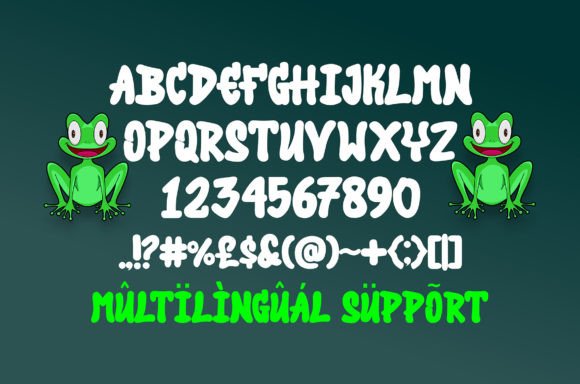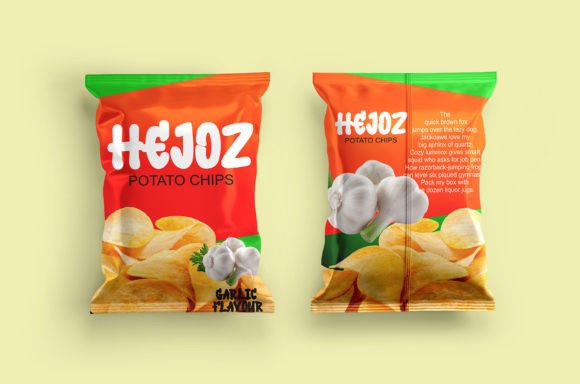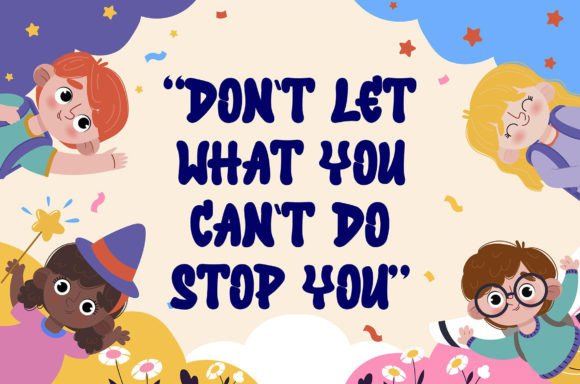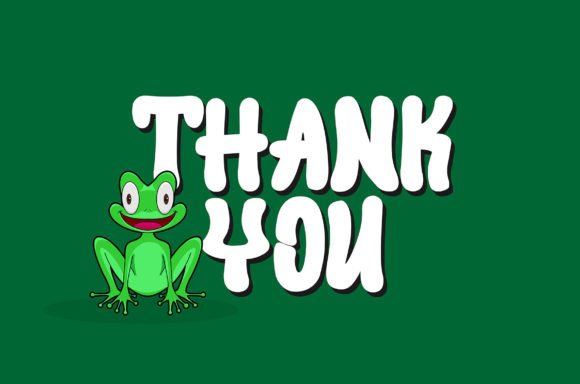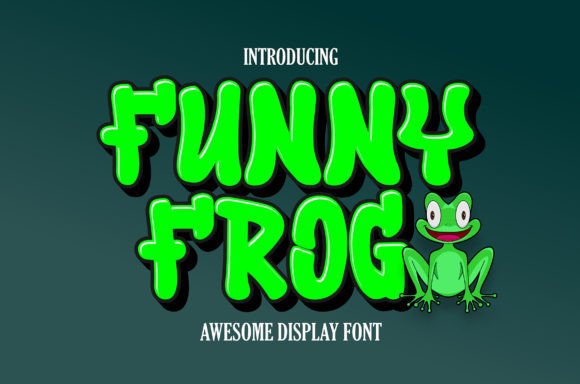
Introducing Funny Frog Font: The Ultimate Display Font for Fun and Quirky Designs
Are you tired of using the same old boring fonts in your design projects? Look no further! Funny Frog Font is here to add a touch of whimsy and playfulness to your creations. This fun and quirky display font features cute characters that are sure to elevate your branding, headings, posters, wall art, stickers, and more to the highest level.
What Makes Funny Frog Font So Special?
Funny Frog Font is a unique and eye-catching display font that is perfect for designers and crafters looking to add some personality to their work. Here are just a few reasons why Funny Frog Font stands out:
- Fun and Quirky Characters: Each character in Funny Frog Font has been carefully designed to be fun, quirky, and full of personality. From the adorable frog face to the playful lettering, every detail is sure to bring a smile to your face.
- Highly Versatile: Funny Frog Font is perfect for a wide range of design projects, including branding, headings, posters, wall art, stickers, and more. Whether you’re working on a children’s book, a craft project, or a marketing campaign, this font is sure to add a touch of whimsy and fun.
- Easy to Read: Despite its playful design, Funny Frog Font is surprisingly easy to read, making it perfect for use in both digital and print projects.
- Scalable: Funny Frog Font is designed to be scalable, so you can use it in projects of all sizes, from small stickers to large billboards.
Uses for Funny Frog Font
Funny Frog Font is incredibly versatile, and can be used in a wide range of design projects, including:
- Branding: Add a touch of whimsy to your brand’s logo or marketing materials with Funny Frog Font.
- Posters and Flyers: Create eye-catching posters and flyers with Funny Frog Font that are sure to grab attention.
- Wall Art: Use Funny Frog Font to create fun and quirky wall art that adds personality to any room.
- Stickers: Create adorable stickers with Funny Frog Font that are perfect for kids’ parties, crafts, or marketing campaigns.
- Children’s Books: Bring your children’s book to life with Funny Frog Font, perfect for titles, headings, and illustrations.
Tips for Using Funny Frog Font
Here are a few tips for getting the most out of Funny Frog Font:
- Experiment with Colors: Funny Frog Font looks great in a variety of colors, so don’t be afraid to experiment and find the perfect hue for your project.
- Mix and Match: Combine Funny Frog Font with other fonts to create a unique and eye-catching design.
- Keep it Simple: Don’t overcomplicate your design – Funny Frog Font is perfect for simple, yet effective designs.